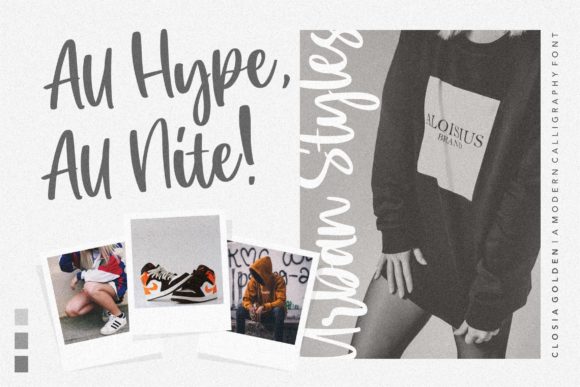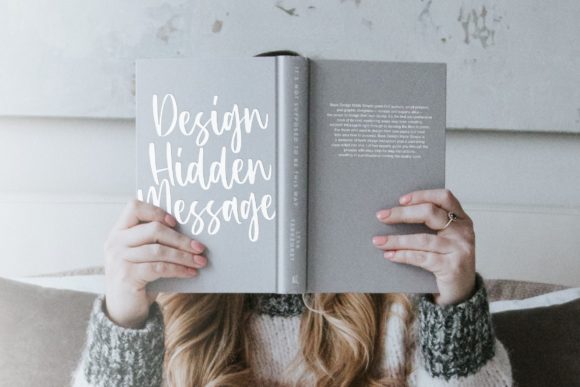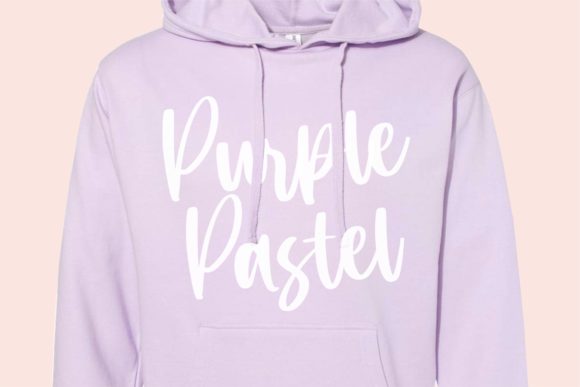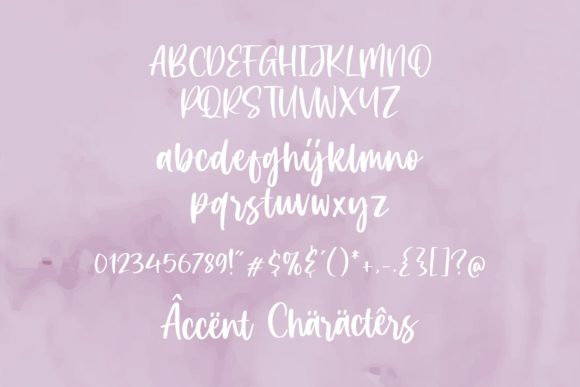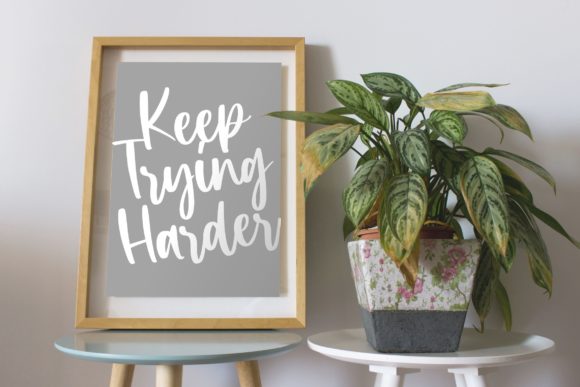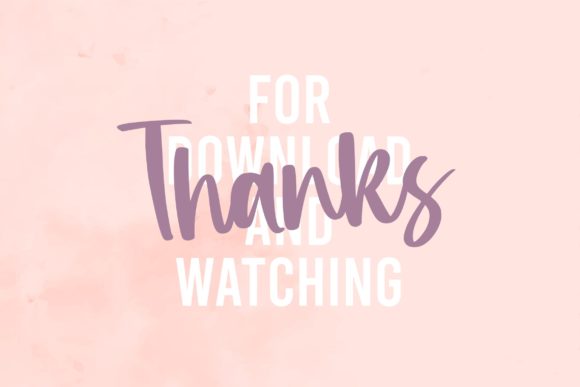
The Power of a Perfect Font: Discovering the Magic of Celosia Golden
Have you ever been brainstorming a creative project, and then suddenly, a spark of inspiration hits you? The ideas start flowing, and you can almost see the final product in your mind’s eye. This is what happened to me when I first laid eyes on the Celosia Golden Font. It was as if this elegant, flowing handwritten font was the missing piece I needed to bring my ideas to life.
Celosia Golden Font is more than just a pretty face – it’s a versatile tool designed to elevate your designs and make them truly special. With its delicate, well-balanced characters, it’s the perfect addition to any creative project. Whether you’re a seasoned designer or just starting out, this font is sure to become your new go-to companion.
Celosia Golden Font Key Features
- Font Family: Celosia Golden, a display font designed for headings and titles
- Unique Characteristics: Features a unique, golden-inspired design with intricate details and ornate flourishes, making it perfect for creating eye-catching headings and titles
Celosia Golden Font Review
First off, I want to say that the Celosia Golden Font is a visually stunning font. ✨ It has a unique, delicate quality that adds a touch of elegance to any design. The rounded edges and intricate details make it perfect for creating a whimsical or vintage feel in your projects.
Here are some of the things that work well with the Celosia Golden Font:
- Unique and distinctive style
- Highly legible, even at smaller font sizes
- Pairs well with a wide range of colors and backgrounds
- May not be suitable for bold or loud headlines
- Can be a bit difficult to read in very small sizes
- Not as versatile as some other fonts in terms of styling options
Overall, I think the Celosia Golden Font is a great addition to any designer’s toolkit. While it may have some limitations, its unique style and versatility make it a great choice for a wide range of projects. If you’re looking for a font that adds a touch of sophistication and whimsy to your designs, the Celosia Golden Font is definitely worth checking out.
To get the most out of the Celosia Golden Font, use it for headings and titles to add a touch of elegance and sophistication to your designs. You can also pair it with other fonts to create a unique and eye-catching combination.
The Celosia Golden Font is perfect for:
– Luxury brand logos and marketing materials
– High-end fashion and beauty branding
– Any design project that requires a touch of glamour and sophistication
Alternatives to Celosia Golden Font
Pacifico is a beautiful, elegant script font perfect for wedding invitations, event branding, and any occasion that requires a touch of sophistication. It has a similar feel to Celosia Golden Font, but with a more refined and polished look.
Comparison: Pacifico has a more intricate design and a more vintage feel compared to the modern, playful look of Celosia Golden Font.
Great Vibes is a fun, energetic script font ideal for music festivals, summer campaigns, and any project that needs a lively atmosphere. It shares a similar playful and whimsical feel with Celosia Golden Font, but with a more modern and edgy look.
Comparison: Great Vibes has a more dynamic and unpredictable feel compared to the more structured and elegant look of Celosia Golden Font.
Alex Brush is a beautiful, handwritten font perfect for crafting unique and personalized messages. It has a similar, elegant feel to Celosia Golden Font, but with a more rustic and earthy look.
Comparison: Alex Brush has a more organic and natural feel compared to the more polished and refined look of Celosia Golden Font.
Dancing Script is a lively, energetic script font ideal for creative projects, fashion branding, and any occasion that requires a touch of excitement. It shares a similar playful and whimsical feel with Celosia Golden Font, but with a more modern and sleek look.